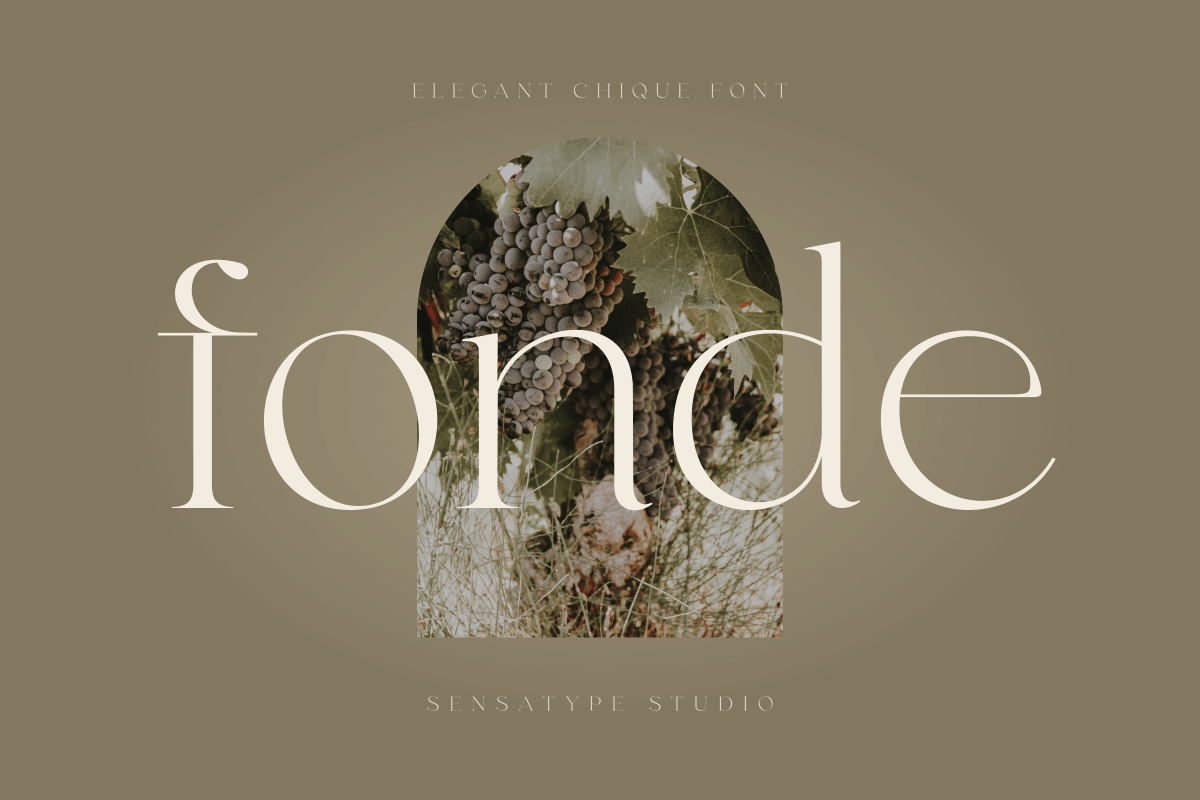
fonde
-Elegant Chic Logo Font
Fonde
fonde - Elegant Chic Logo Font
Fonde is an elegant chic font designed for creating sophisticated brand identities and memorable logo designs. Featuring a stylish and refined visual character, this typeface brings a premium and modern aesthetic to creative projects.
Perfect for luxury branding, logo design, quotes, social media graphics, fashion projects, beauty products, and editorial layouts. Fonde helps designers create elegant typography compositions with a classy and distinctive appearance.
With its balanced letterforms and stylish personality, Fonde is a versatile choice for brands that need a modern, chic, and memorable visual identity.